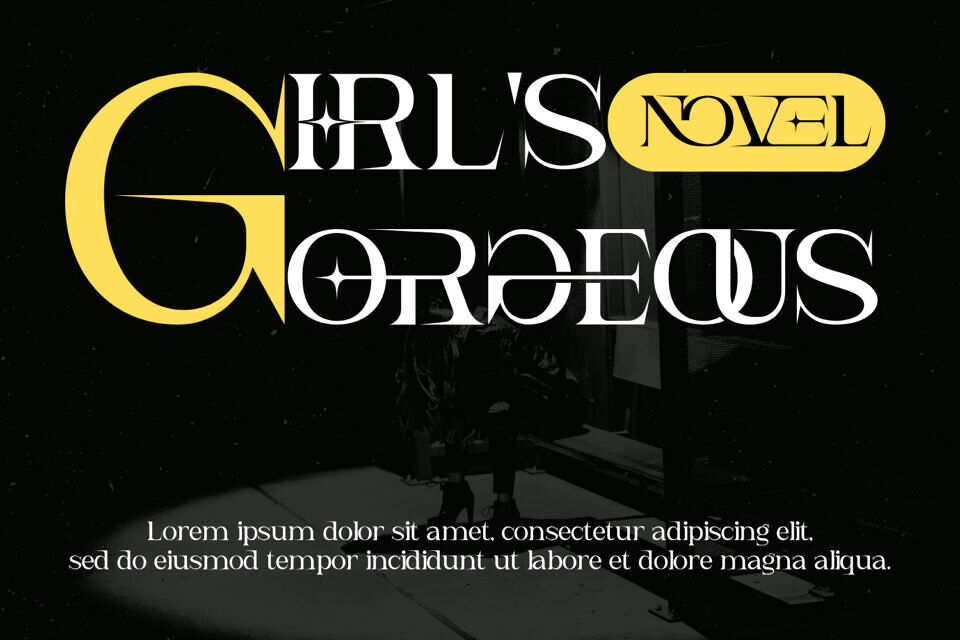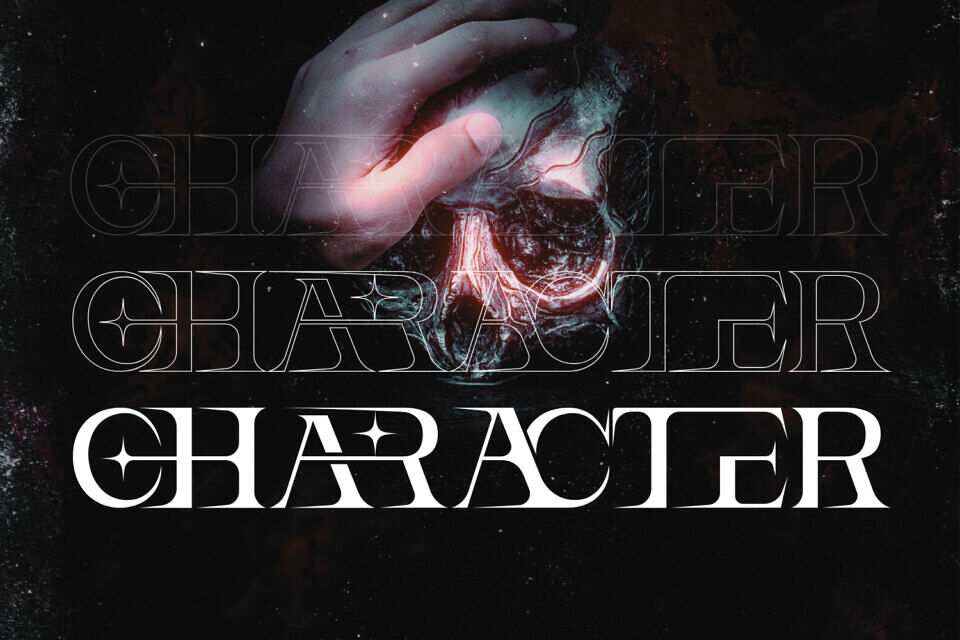
ARCHES is a striking Bold Futuristic modern serif display font that bridges classic elegance with a futuristic edge. Designed with high contrast strokes and geometric precision, this typeface features star-cut counters and stylized terminals that make every word feel editorial and iconic.
Perfect for high-fashion branding, magazine headlines, album covers, and cinematic titles, ARCHES delivers visual impact and sophistication in equal measure.